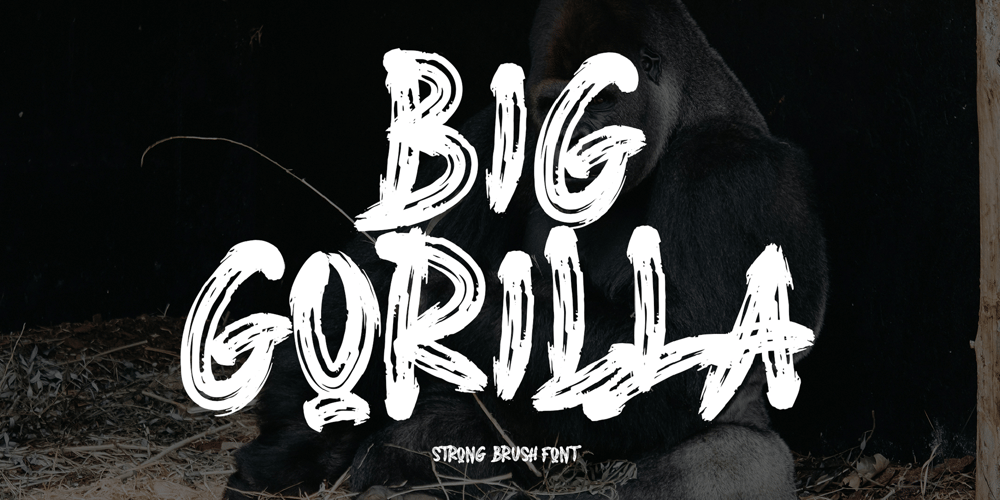
Big Gorilla Font Family was designed by Amin Maryono and published by Aminmario Studio. Big Gorilla contains 1 styles and family package options. INTRODUCINGThis is a supercharged font, with natural brush, quick strokes and sharp details. Contains ALL CAPS, numbers, some punctuation and ligature. Perfect for challenging jobs, titles, movie,logos, apparel, t-shirts, hoodies, quotes, product packaging, or anything that needs a typographic turbo-boost and a typographic unique style.Thanks for checking out this font. I hope you enjoy it!AminMario